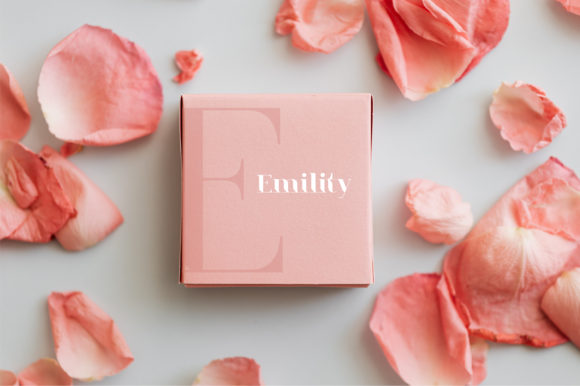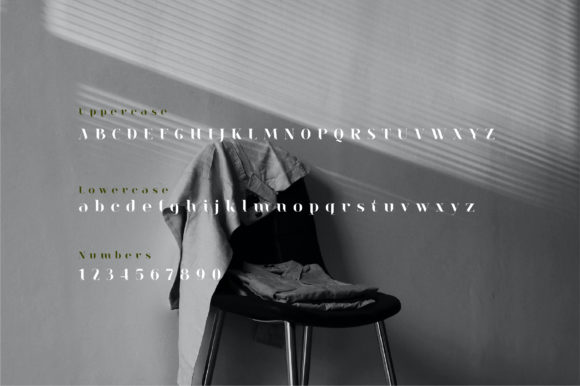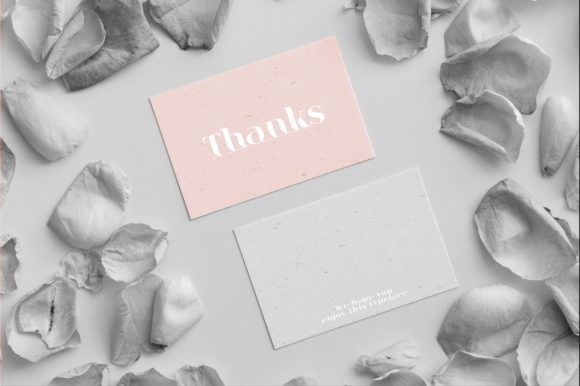
Introducing Emility Font: Elevate Your Designs with Elegance
Are you looking for a font that exudes sophistication and refinement? Look no further than Emility, an elegant serif font designed to take your projects to new heights. With its classic charm and versatility, Emility is the perfect choice for designers and crafters seeking to add a touch of luxury to their work.
The Perfect Font for Ambitious Projects
Emility is more than just a font – it’s a statement piece. Its elegant serif design makes it ideal for a wide range of applications, from branding and headings to wedding invitations, digital media, movie titles, signatures, logos, labels, and more. Whether you’re working on a high-end brand identity or a beautiful wedding invitation, Emility is the perfect choice to convey sophistication and refinement.
Key Features of Emility Font
- Elegant Serif Design: Emility’s classic serif design adds a touch of sophistication to any project.
- Versatile: Use Emility for a wide range of applications, from digital media to print materials.
- High-Quality: Emility is designed to deliver crisp, clear text at any size.
- Easy to Read: Emility’s clear and legible design makes it perfect for body text and headings.
Why Choose Emility Font?
With so many fonts available, why choose Emility? Here are just a few reasons why Emility stands out from the crowd:
- Unique and Distinctive: Emility’s elegant serif design sets it apart from more generic fonts.
- Timeless: Emility’s classic design ensures it will remain relevant for years to come.
- Highly Versatile: Use Emility for a wide range of projects, from digital media to print materials.
How to Use Emility Font
Emility is easy to use and can be applied to a wide range of projects. Here are a few ideas to get you started:
- Branding: Use Emility to create a sophisticated brand identity that stands out from the crowd.
- Wedding Invitations: Add a touch of elegance to your wedding invitations with Emility.
- Digital Media: Use Emility for digital media, such as movie titles, social media graphics, and more.
- Signatures and Logos: Add a touch of sophistication to your signatures and logos with Emility.
Tips for Pairing Emility Font with Other Fonts
Pairing Emility with other fonts can create a unique and visually appealing combination. Here are a few tips to keep in mind:
- Pair with Sans-Serif Fonts: Pair Emility with sans-serif fonts for a classic and modern combination.
- Use for Headings: Use Emility for headings and pair with a simpler font for body text.
- Experiment with Font Sizes: Experiment with different font sizes to create visual interest and hierarchy.
In conclusion, Emility is an elegant serif font that is sure to elevate your designs to new heights. With its classic charm, versatility, and high-quality design, Emility is the perfect choice for designers and crafters seeking to add a touch of luxury to their work. Whether you’re working on a high-end brand identity or a beautiful wedding invitation, Emility is the perfect choice to convey sophistication and refinement.